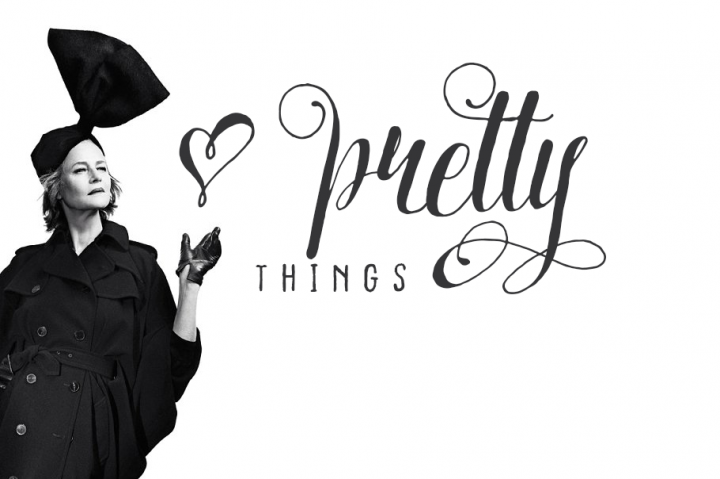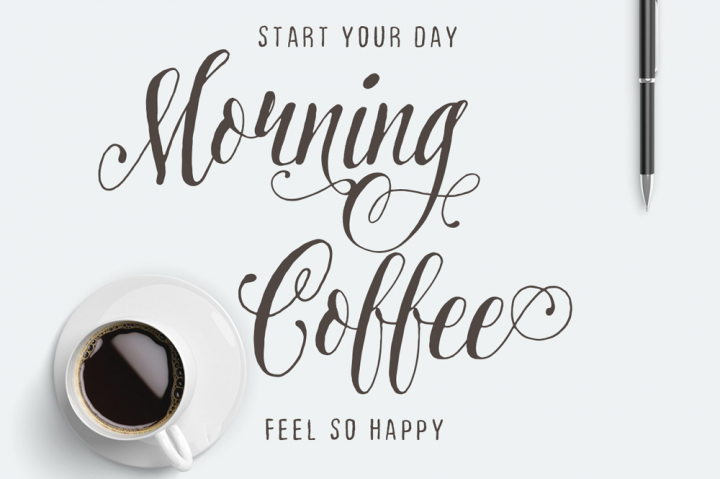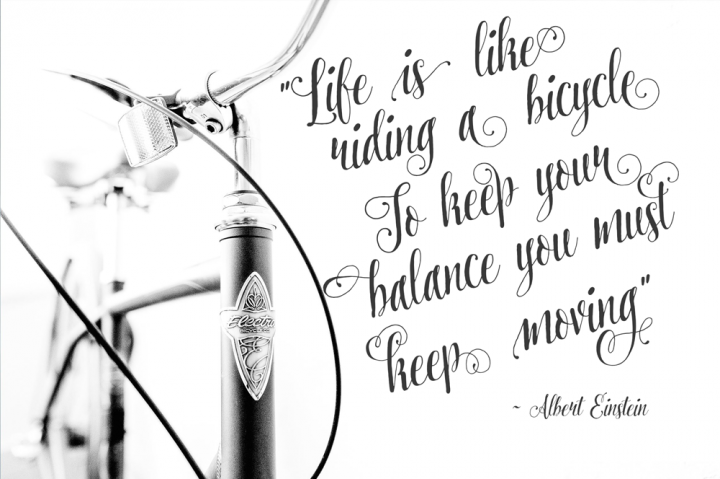
Quarlate Font Duo
Quarlate is a beautiful font duo that is perfect for informal, messy design. A charming combination of a stylish, bouncy script and a playful hand-written Sans. Use them best together, or even on their own. Either way – you get both fonts. This universal font will extend your font collection. Create cute and playful designs, or dress it up and create stylish and chic brands.